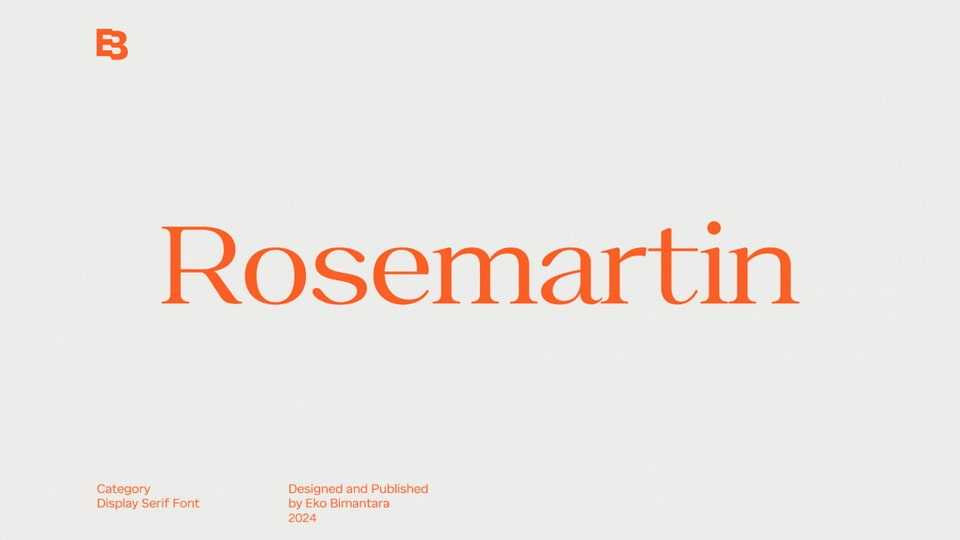
Download Rosemartin font, an elegant and timeless typeface that exudes sophistication and beauty. Rosemartin font adds a sense of beauty and refinement to every design.